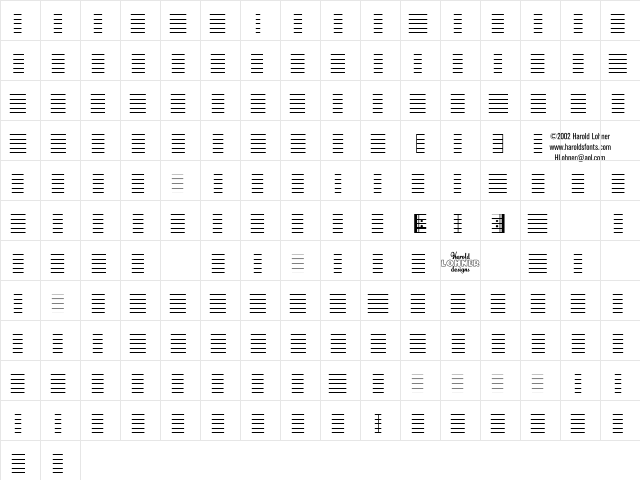
Melody MakerStaff Only Regular
Design Context for Melody MakerStaff Only Typeface
Melody MakerStaff Only is a composed and adaptable typeface that performs quietly and consistently across a wide range of design contexts.